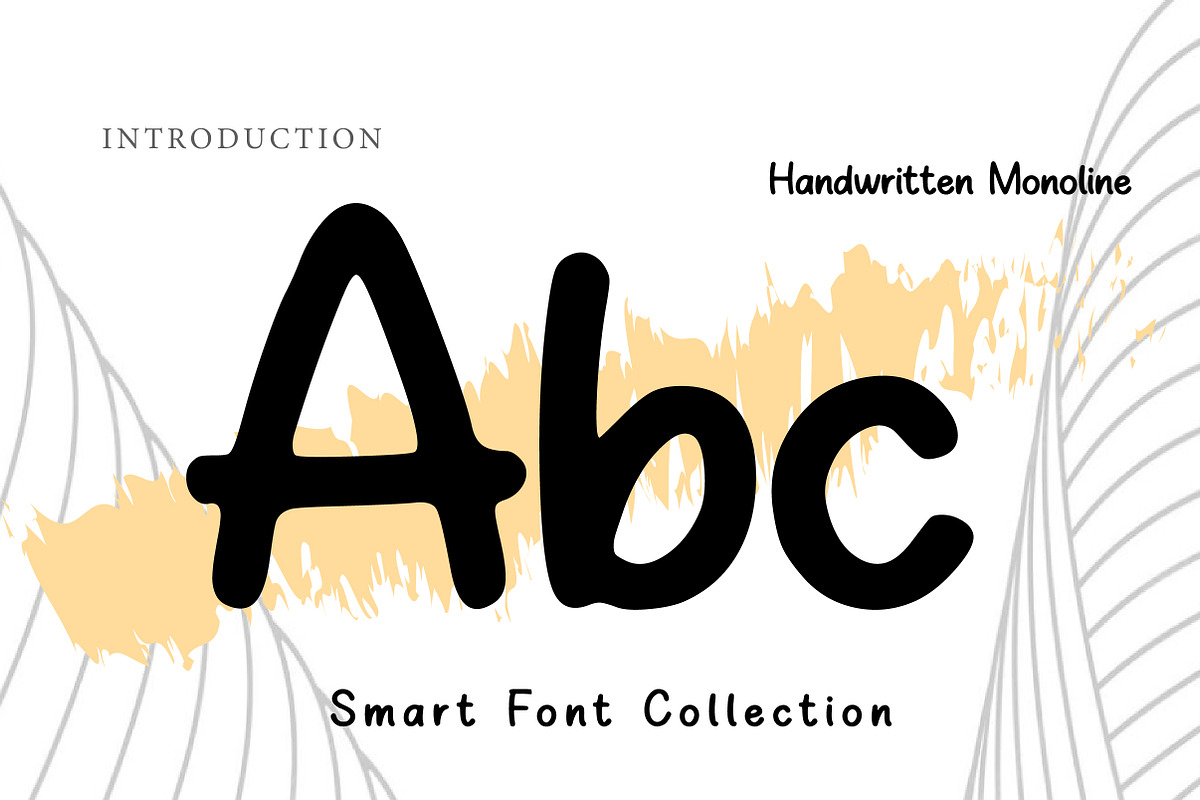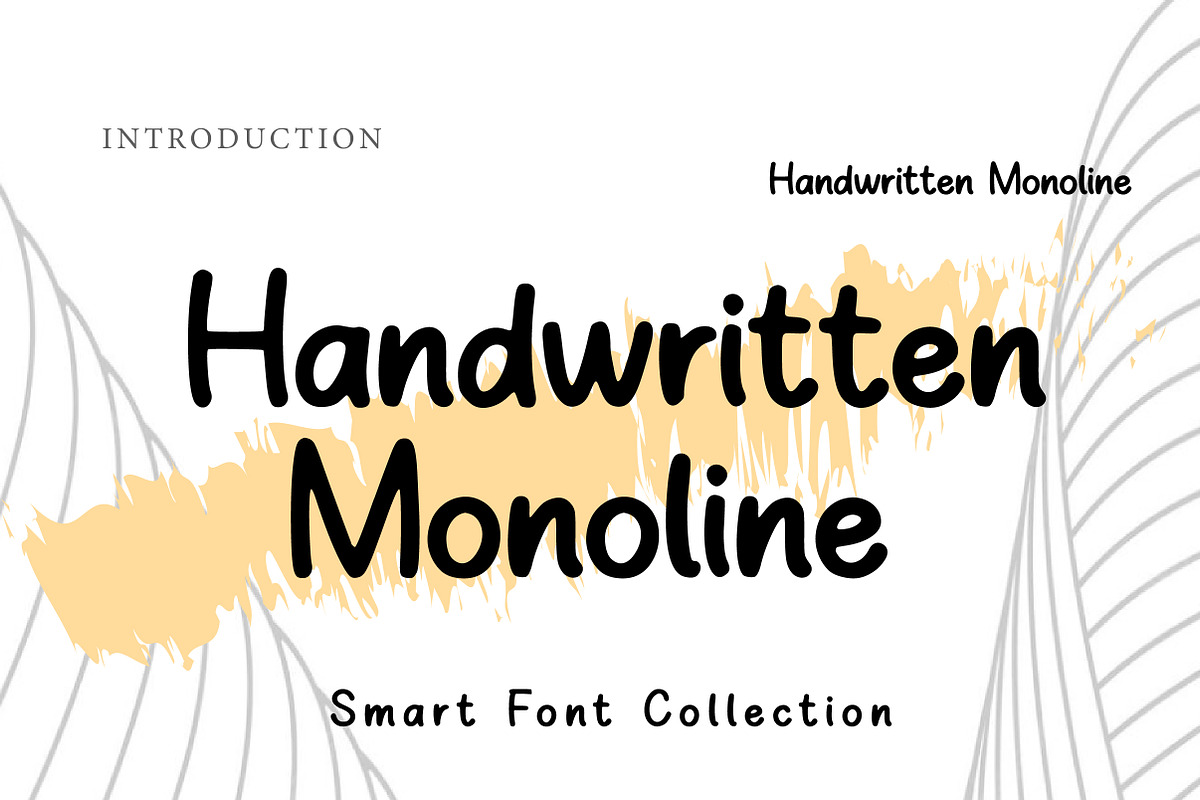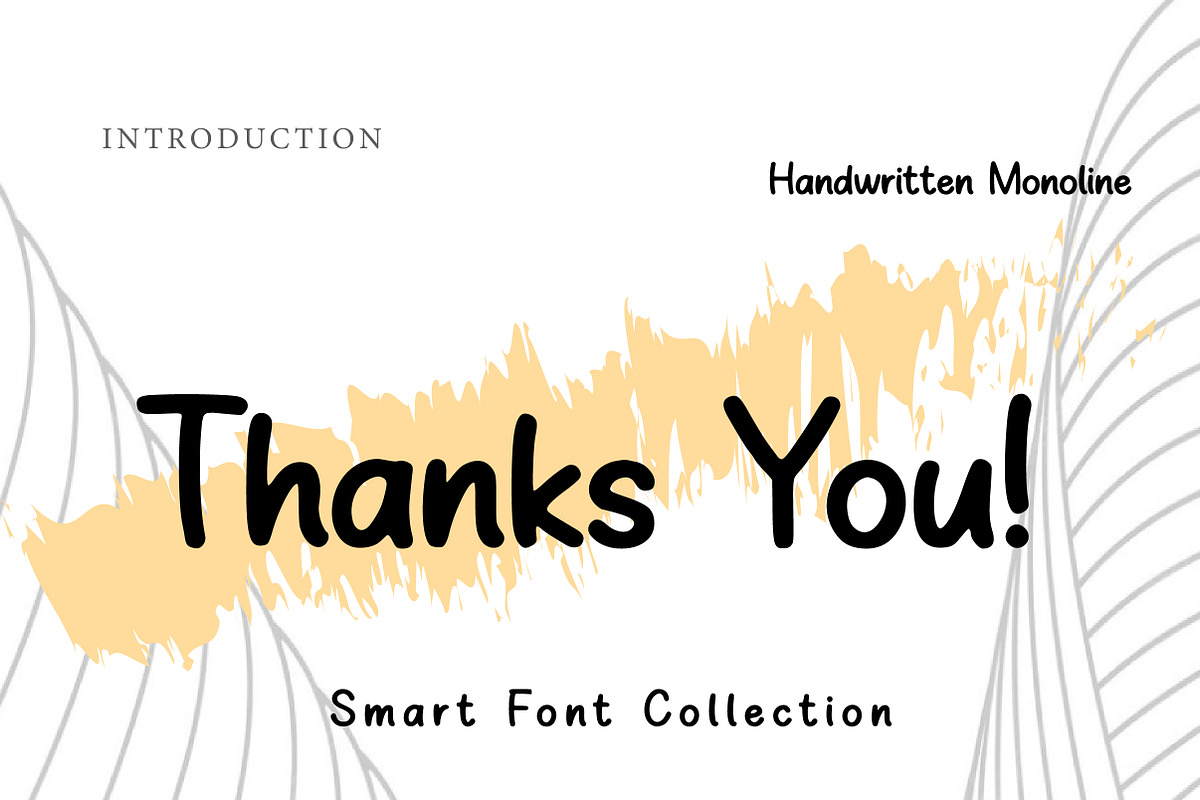
Handwritten monoline
Handwritten Monoline is a clean and friendly handwritten font created with a smooth single-stroke (monoline) style. Its natural writing flow, soft rounded ends, and balanced spacing make it look casual, modern, and highly readable. This font is perfect when you want a personal handwritten touch without messy texture—simple, neat, and versatile.